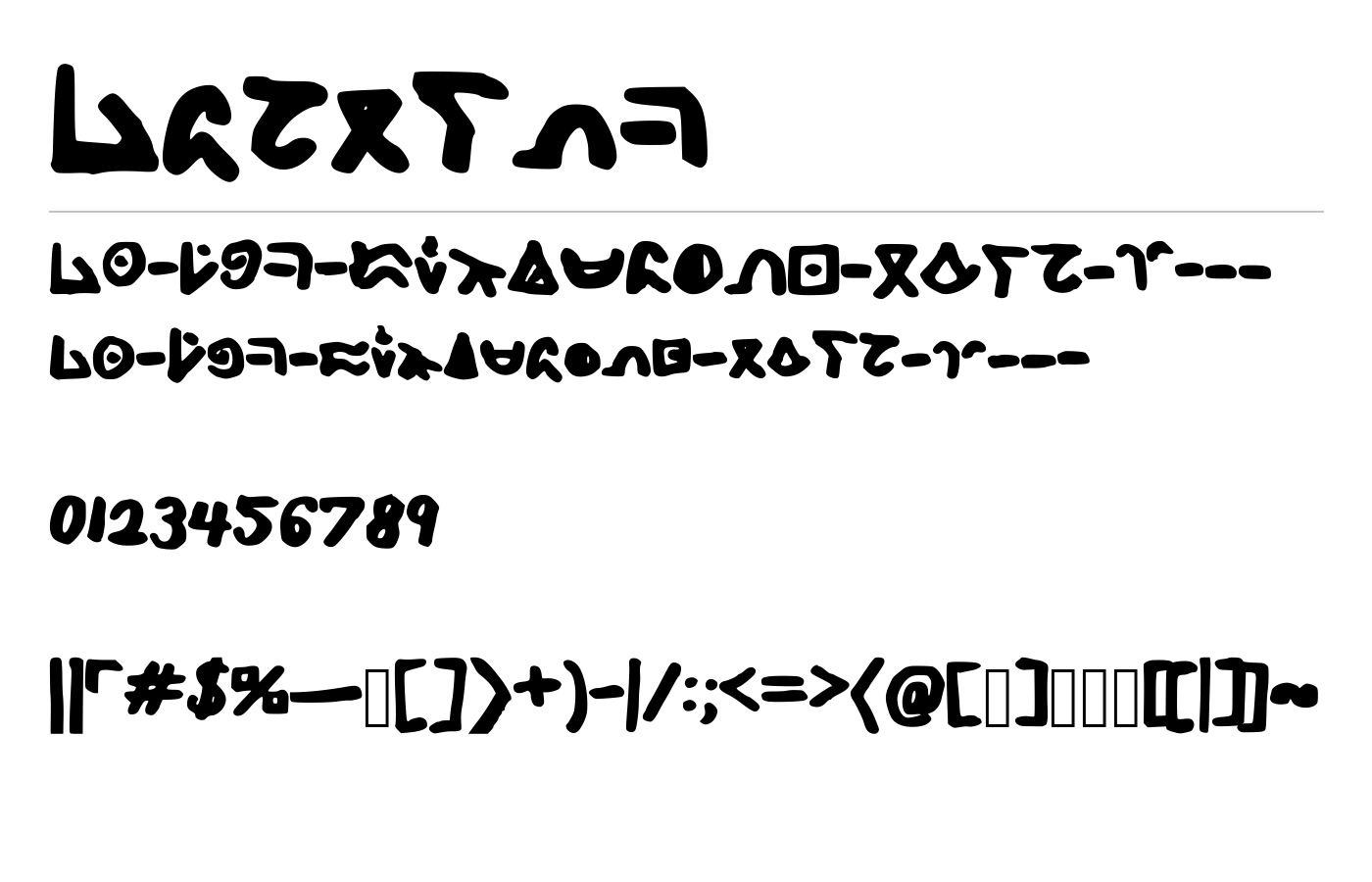
Amurtof is a bold, playful display font with a unique, hand-drawn feel that features irregular, chunky letterforms and quirky shapes, making it stand out with an artistic and informal vibe. Its heavy weight and wide structure give it a strong presence that works best for creative headlines, logos, and projects seeking a fun, casual, or unconventional style. This font brings a lively personality that suits designs aiming for originality and a distinctive, approachable character.
Amurtof Font
About Amurtof Font